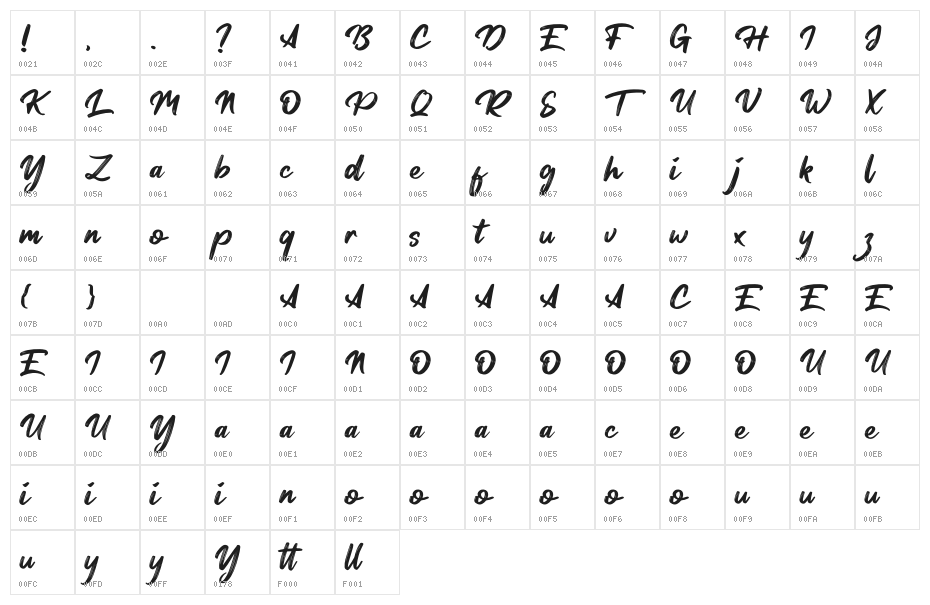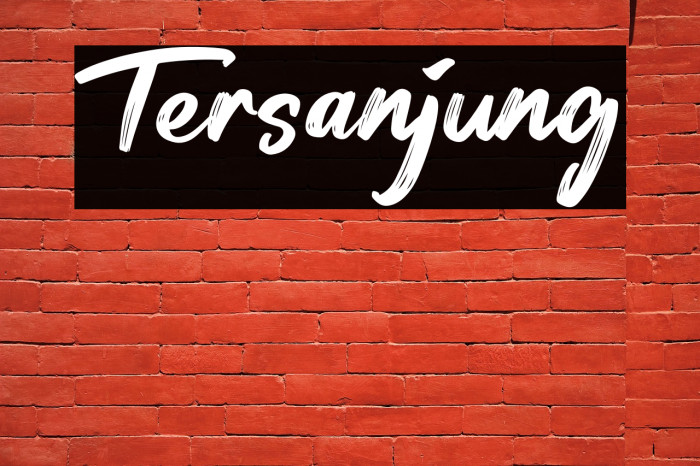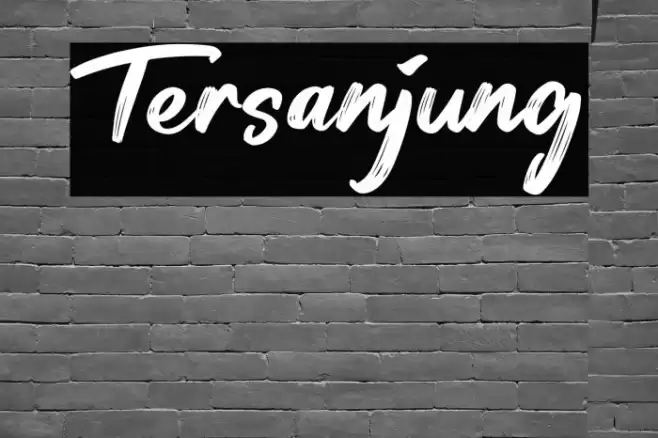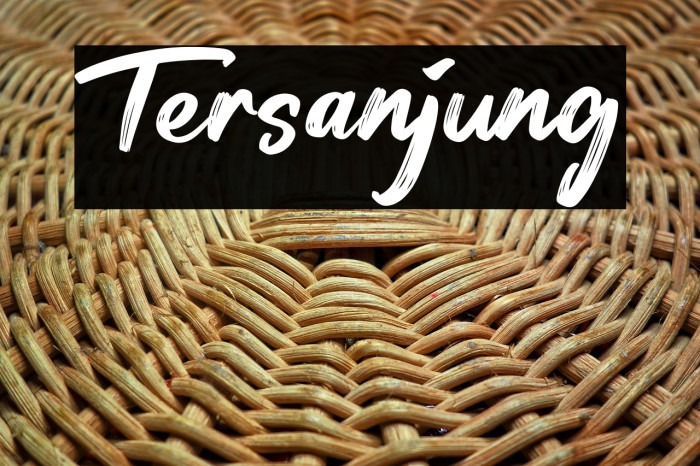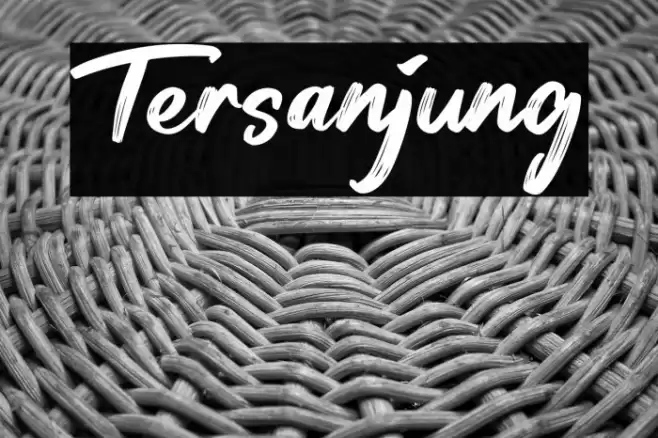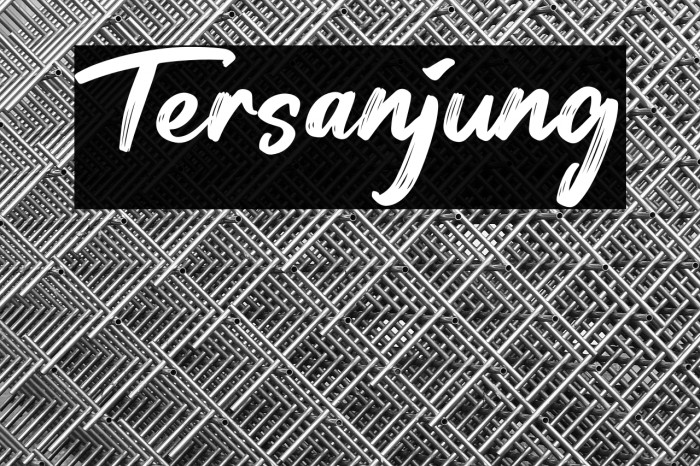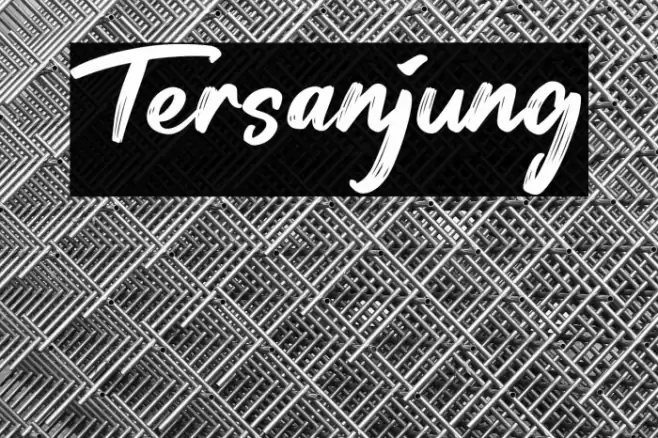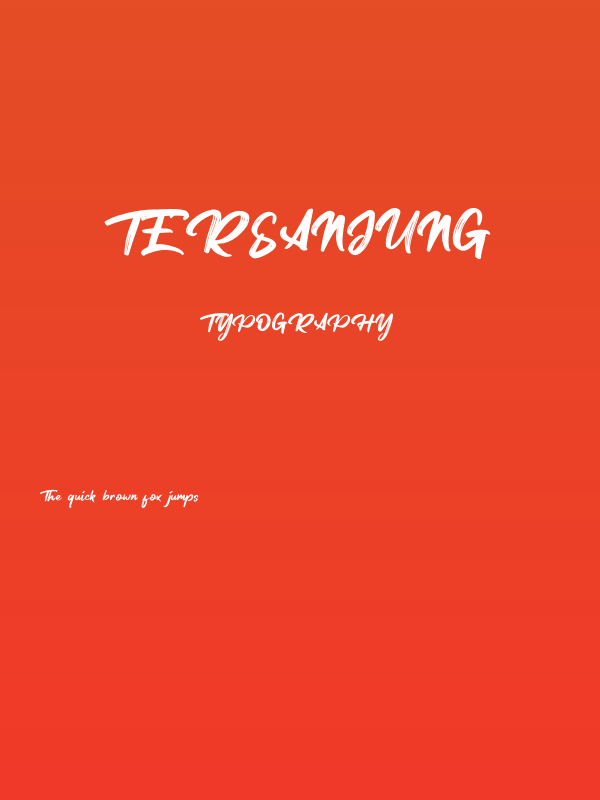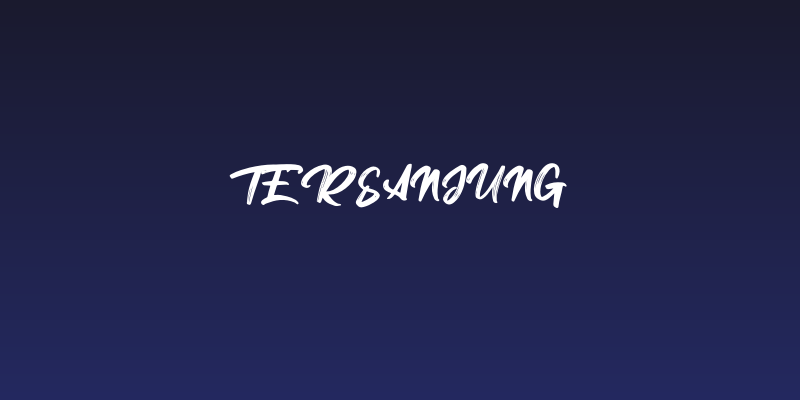
Tersanjung Font
Tersanjung Description
This font features a bold, expressive script style with a hand-painted appearance. The strokes are thick and dynamic, giving it a lively and energetic feel. The uppercase letters are slightly larger and more pronounced, while the lowercase letters maintain a consistent flow and rhythm. The overall design is reminiscent of modern calligraphy, with a casual yet sophisticated touch. The font lacks special characters, focusing primarily on the alphabet, which enhances its clean and uncluttered look.
| Proposed Projects | Ideal for branding projects, logo design, invitations, and social media graphics where a personal, artistic touch is desired. |